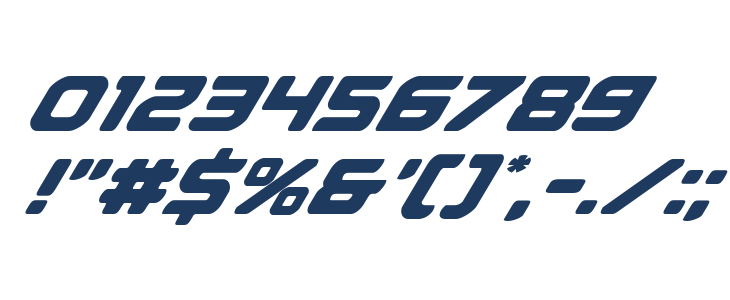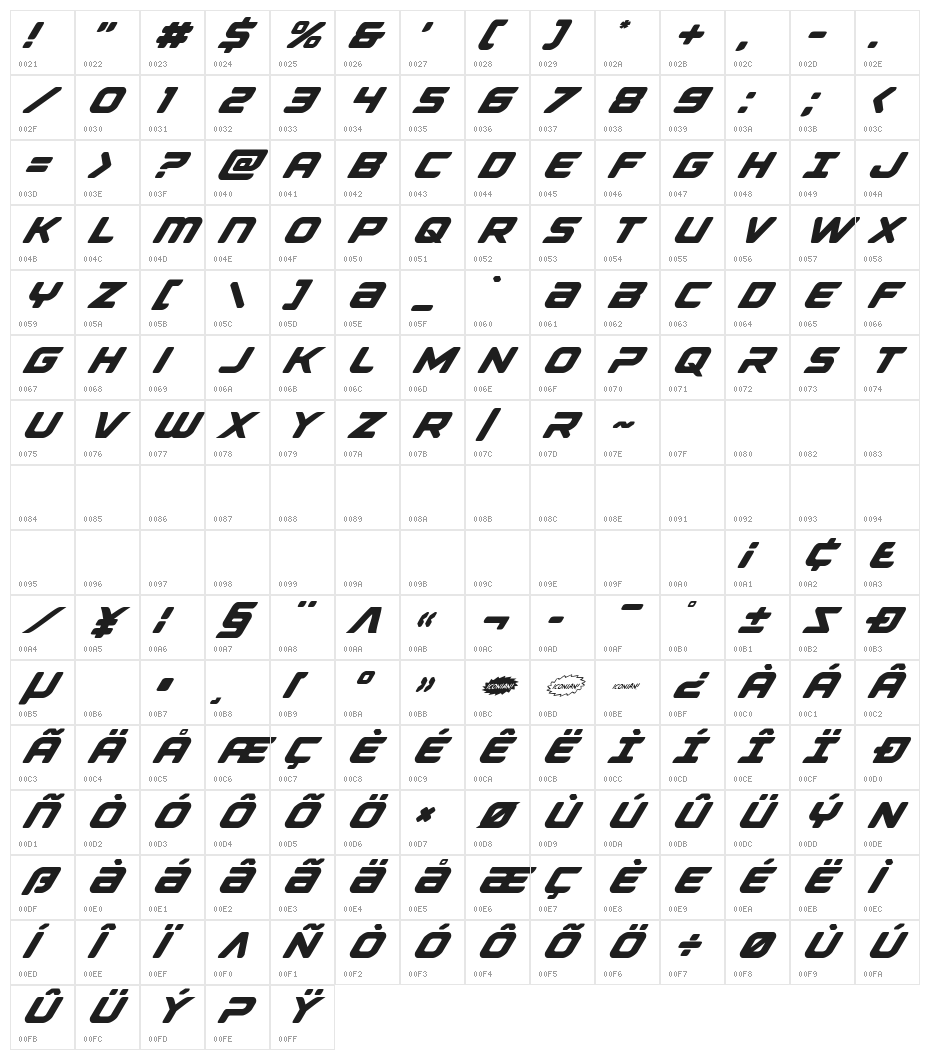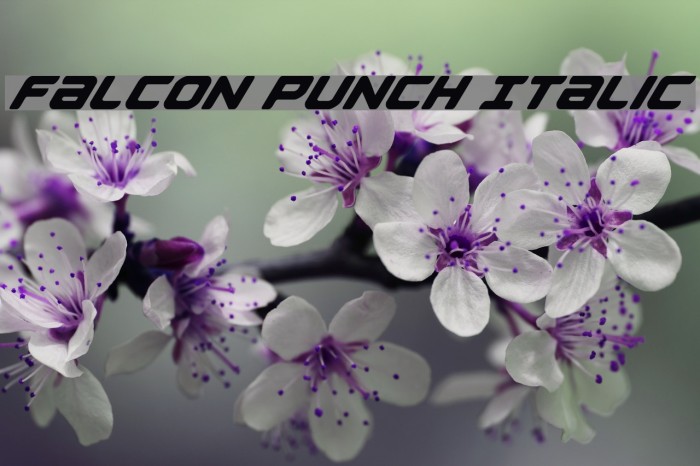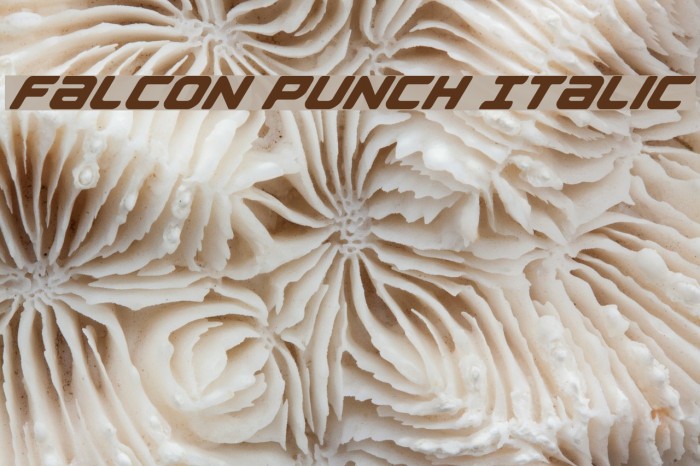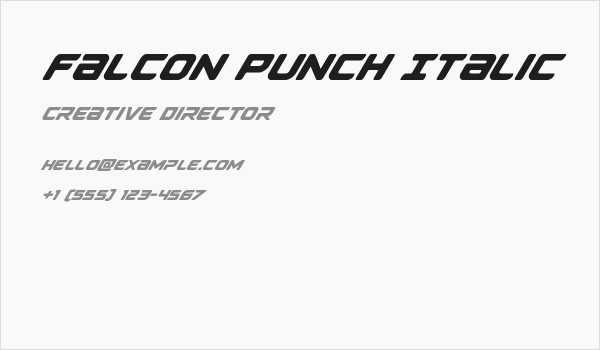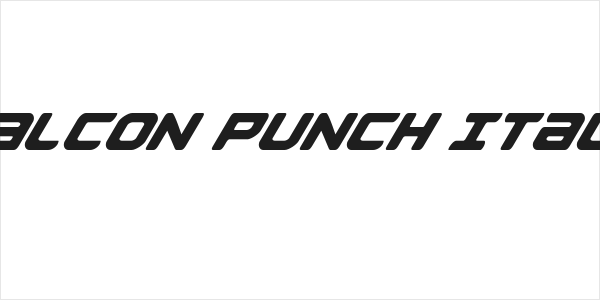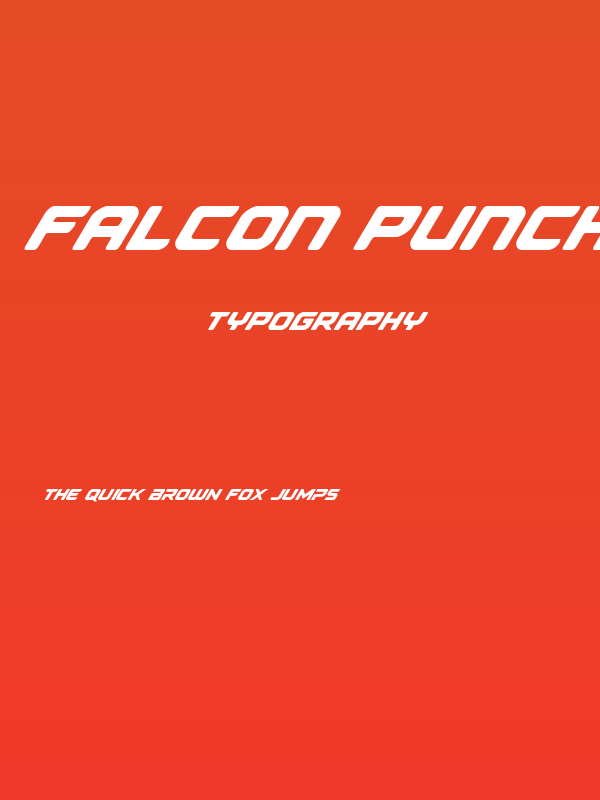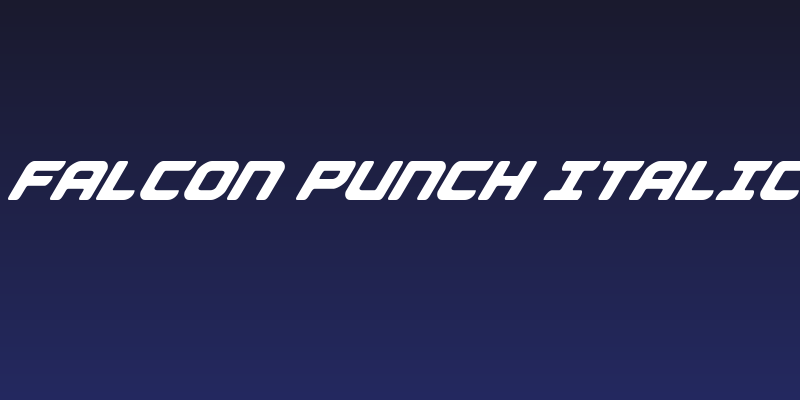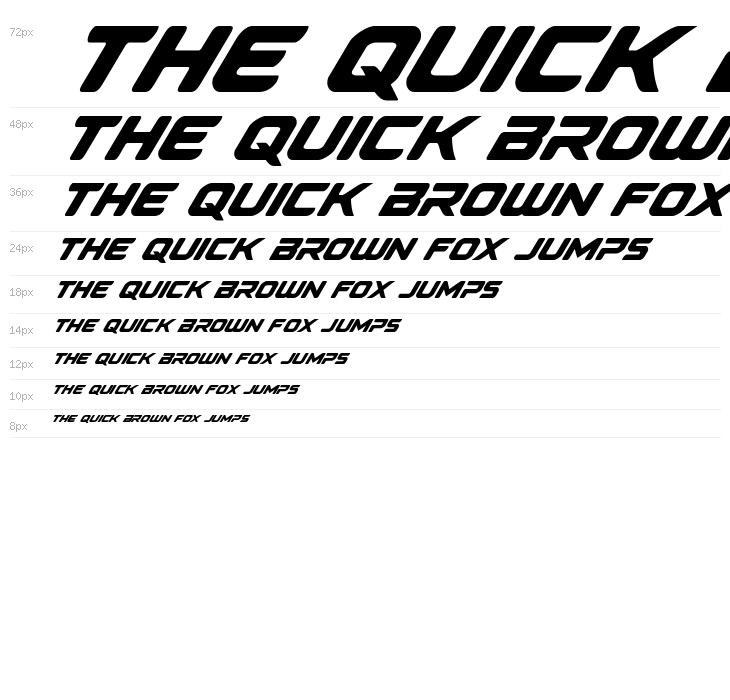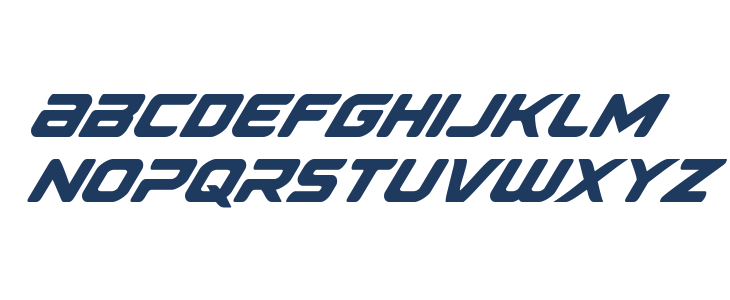
Falcon Punch Italic Font
Falcon Punch Italic Description
This font features a bold and dynamic italic style, characterized by its strong, angular lines and slightly condensed form. The letters are slanted, giving a sense of motion and energy, making it ideal for impactful designs. The uppercase and lowercase characters maintain a consistent style, with rounded edges that soften the overall appearance. Numbers and special characters are designed to match the boldness and slant of the alphabet, ensuring uniformity across all text elements. The font's modern and sporty aesthetic makes it suitable for a variety of creative applications.
| Proposed Projects | Ideal for sports branding, dynamic posters, video game titles, and action-themed graphics. |